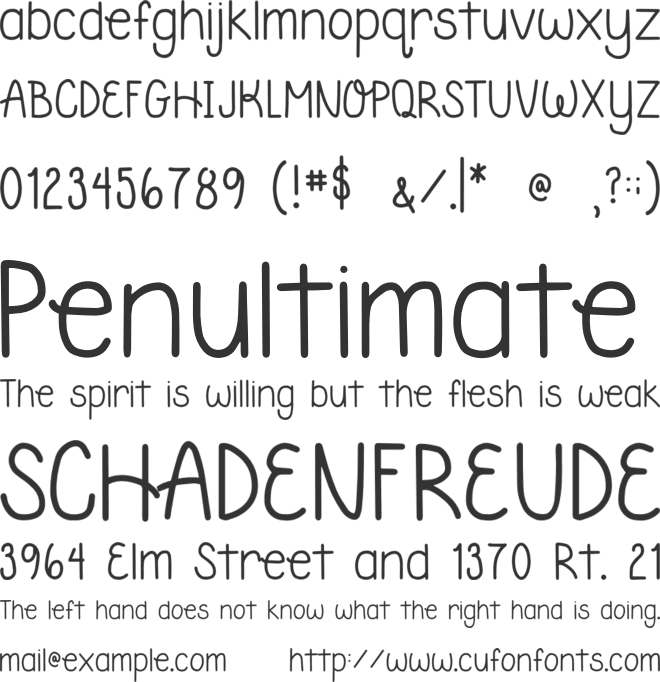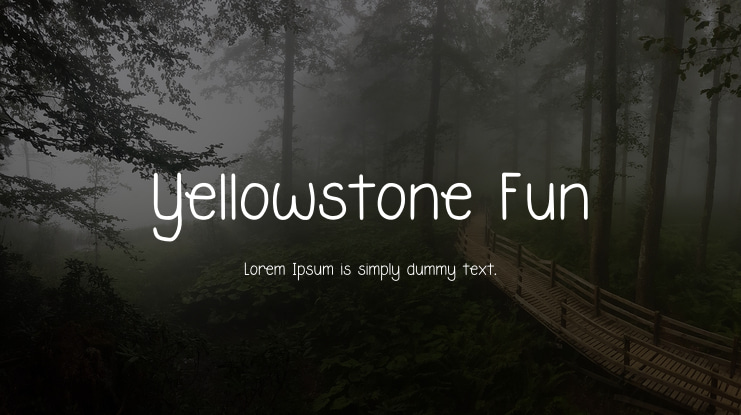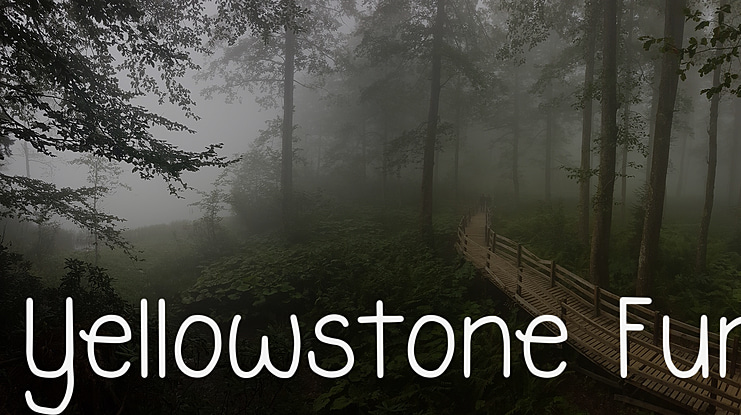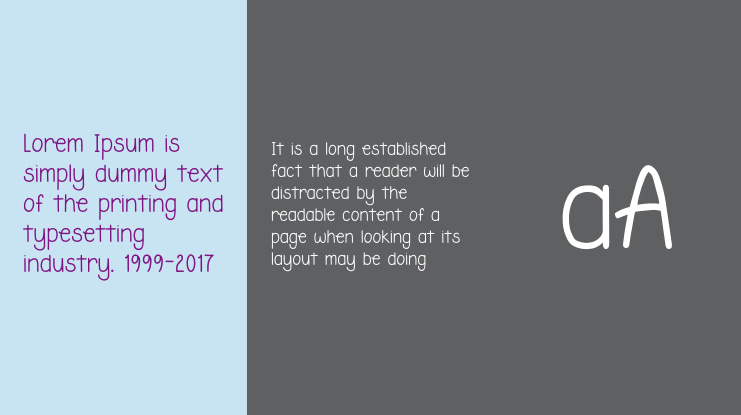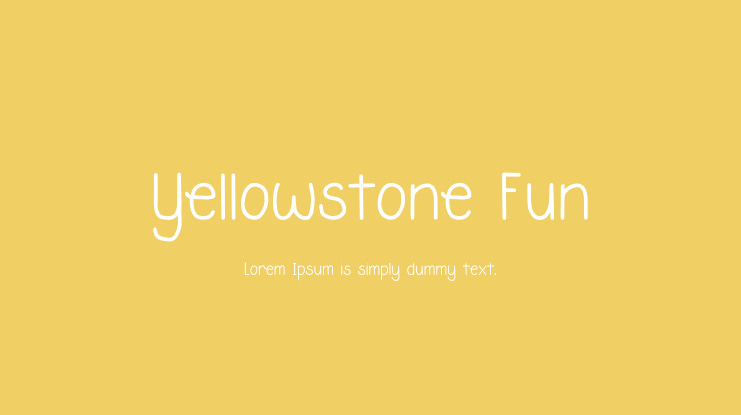
Yellowstone Fun Font Family
This typeface was designed to serve as the headline and title font for Julie Olson's book, "Yellowstone: An Illustrated Guidebook." It was created in 2021.